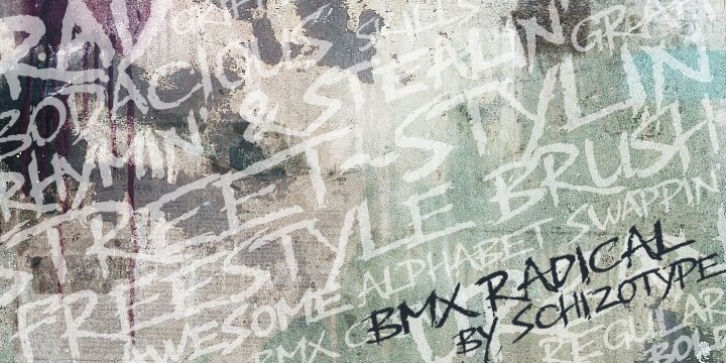
BMX Radical was designed by Dave Rowland and published by Schizotype. BMX Radical contains 2 styles and family package options.
BMX Radical is inspired by the titles of the cult 1980s BMX movie 'Rad'. The characters R, A and D were designed after this, with the rest of the character set being completely made up. The font is uppercase only, but with two different alphabets. In OpenType-capable applications, engaging contextual alternates will make the alphabets automatically switch between each other, meaning double letter combinations always contain two different glyphs to give the text a much more handmade feel.
It is a very versatile brush font. It can look cheesy and retro in bright colors with outlines or gritty and modern in more muted palettes.